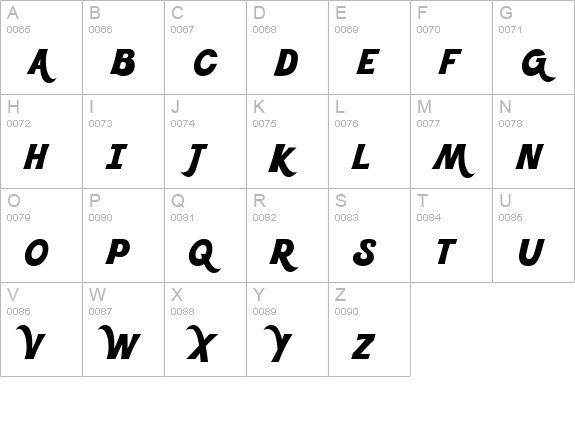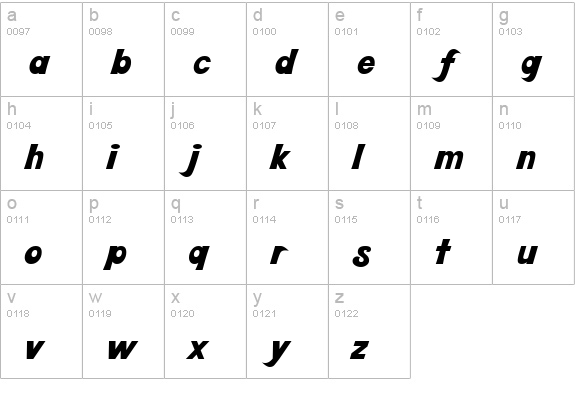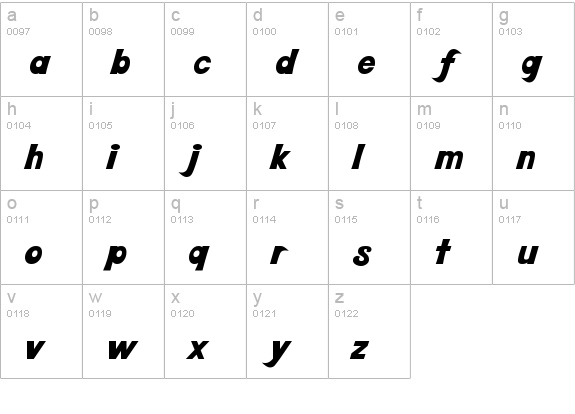
Introducing Kool Beans, a font that exudes a perfect blend of coolness and creativity. This unique typeface is designed to add a touch of flair to your projects, making them stand out from the crowd. With its playful yet sophisticated style, Kool Beans is perfect for a wide range of design applications, from logos and branding to posters and invitations. What makes Kool Beans even more appealing is that it is absolutely free! Yes, you heard it right. This extraordinary font is freely available to download at FontsMarket.com, a trusted platform for high-quality fonts. Now you can enjoy the versatility and charm of Kool Beans without breaking the bank. Designed with attention to detail, Kool Beans features smooth curves and clean lines that give it a modern and trendy look. Its charismatic letterforms are infused with a sense of energy and dynamism, making it an ideal choice for projects that require a touch of excitement. Whether you're designing for a hip café, a vibrant fashion brand, or a lively event, Kool Beans will be your perfect companion, injecting a dash of fun and personality into your designs. With its wide range of weights and styles, Kool Beans offers endless possibilities for creative exploration. From bold and eye-catching headlines to elegant and legible body text, this font has got you covered. Its versatility extends to both print and digital media, allowing you to seamlessly integrate it into various projects. So why wait? Unleash your creativity and download Kool Beans for free at FontsMarket.com. Join the growing community of designers who have fallen in love with this exceptional font. Let Kool Beans be your secret weapon for creating stunning and memorable designs that leave a lasting impression. Get ready to add a fresh twist to your projects with Kool Beans - the free font that truly stands out from the crowd.